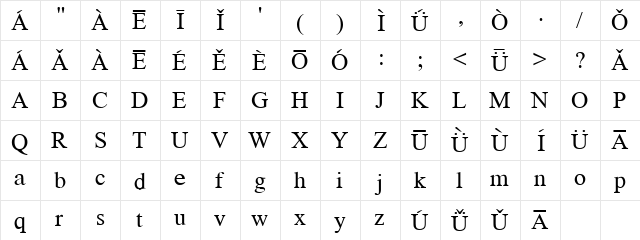
Chinese Pinyin Cap Regular
Design Context for Chinese Pinyin Cap Typeface
Chinese Pinyin Cap is a composed and adaptable typeface that performs quietly and consistently across a wide range of design contexts.